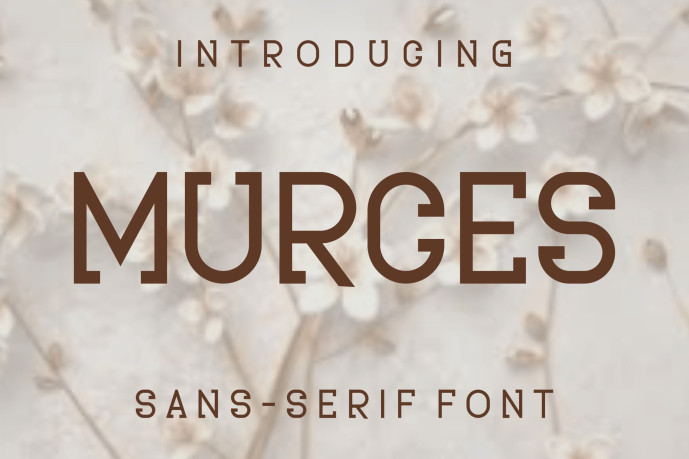
Murces Font
Designer: Undaru
Murces Font Perfectly suited on print/screen. it’s perfect for Branding, name card, poster, logo, magazine, cover, banner, tshirt and headers, or even large-scale artwork.